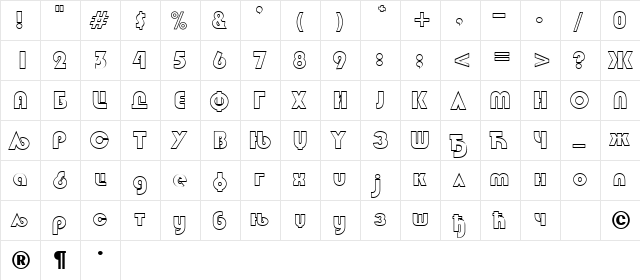
Hippo Cirilica Outline Regular
Design Context for Hippo Cirilica Outline Typeface
Hippo Cirilica Outline brings ornamental detail and strong personality to headlines and identities, where visual impact matters more than quiet functionality.
Font Pairing: Pair with a clean neutral sans-serif for body copy to let Hippo Cirilica Outline's character lead without overwhelming the composition.
Pro Tip: Use Hippo Cirilica Outline exclusively at display sizes — it was designed to be seen, not read at length. Let a neutral companion handle body copy.